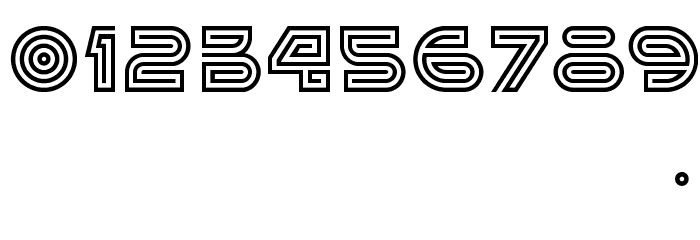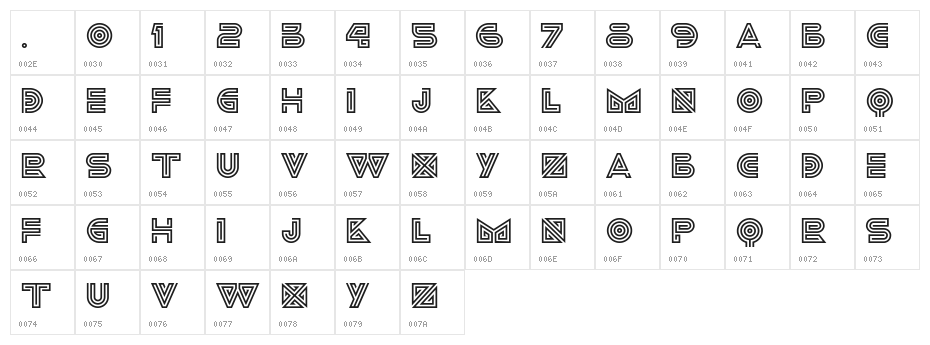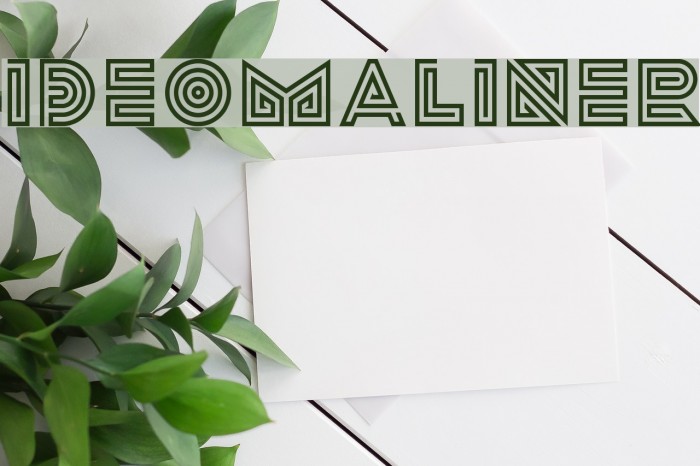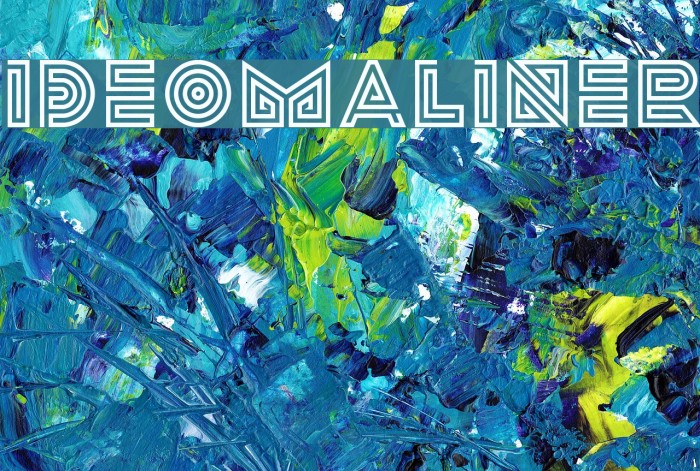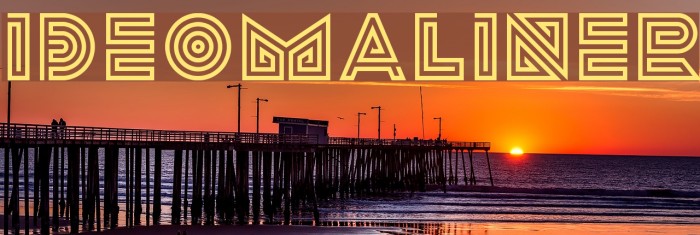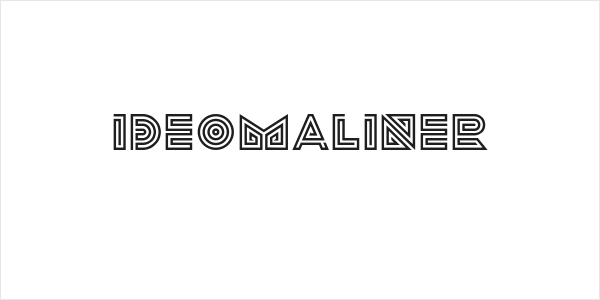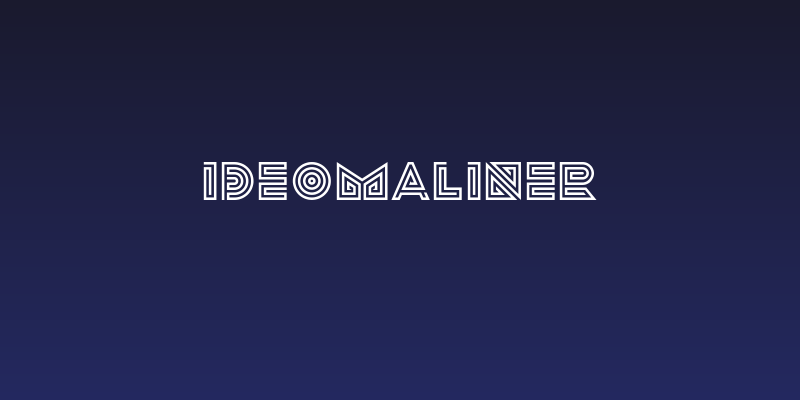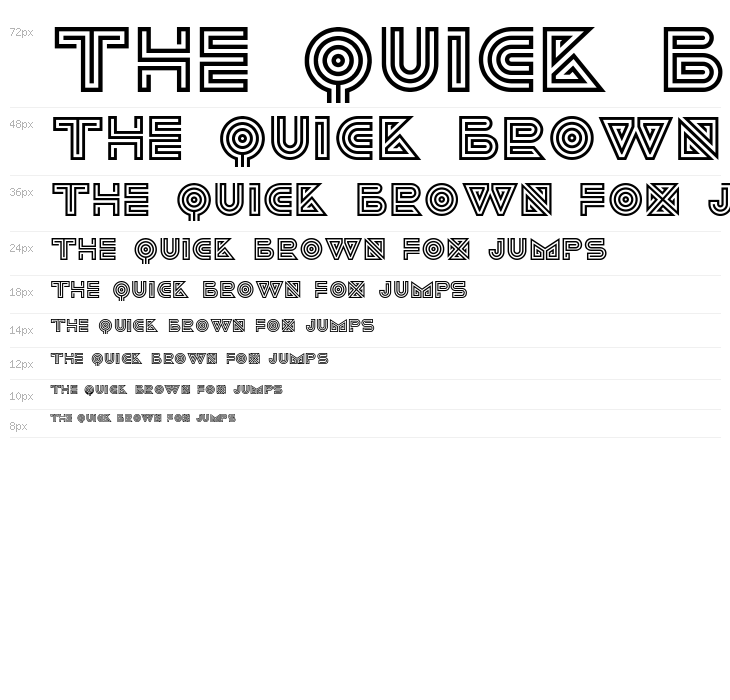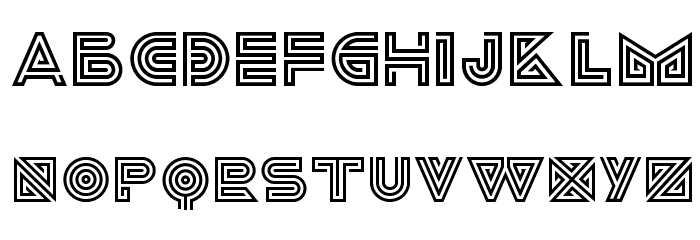
ideomaLINER Font
ideomaLINER Description
This font features a unique, geometric design with a strong emphasis on linear patterns and symmetry. Each character is crafted with multiple parallel lines that create a sense of depth and movement. The uppercase letters are particularly striking, with intricate shapes that resemble architectural structures. The numbers and special characters maintain this theme, offering a cohesive look throughout. The overall style is modern and futuristic, making it ideal for projects that require a bold and distinctive visual impact.
| Proposed Projects | Ideal for branding, posters, album covers, and any design requiring a bold, modern aesthetic. |